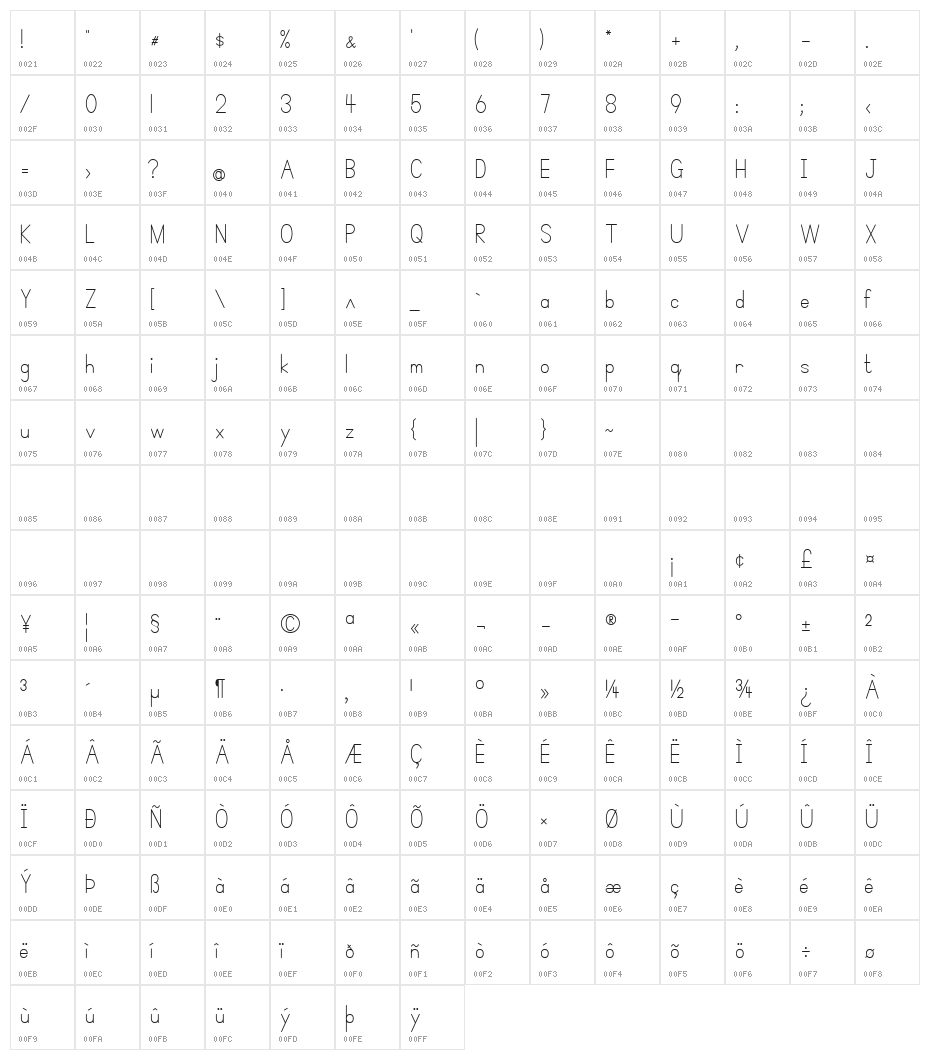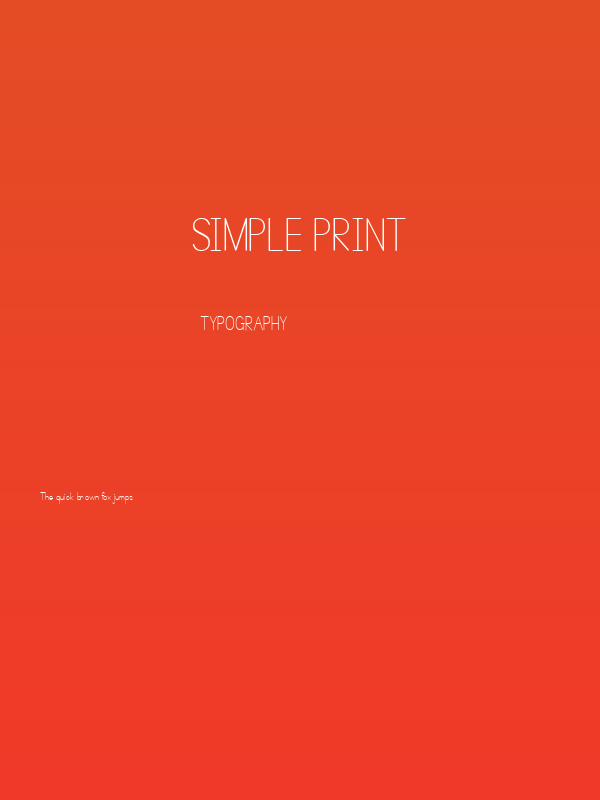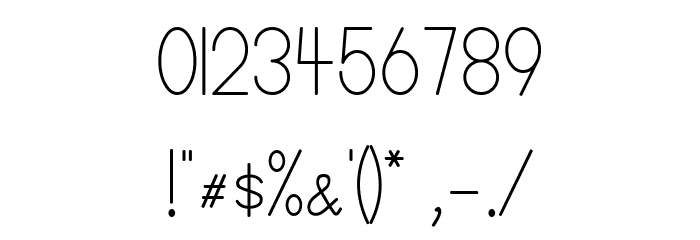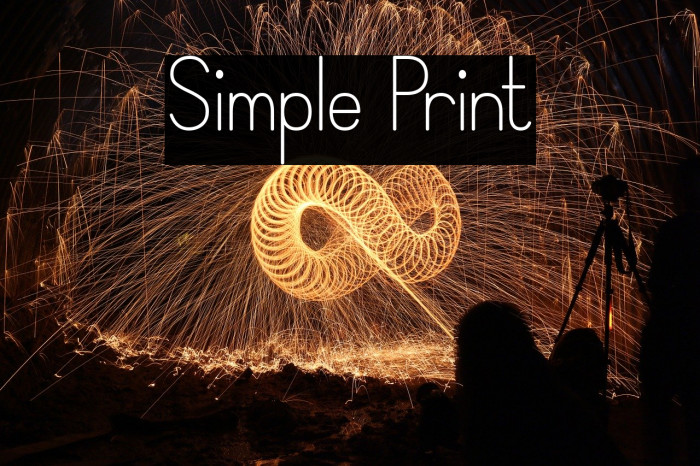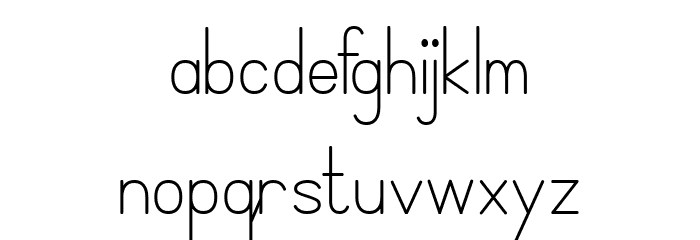
Simple Print Font
Simple Print Description
This font features a clean and straightforward design with thin, uniform strokes that give it a modern and minimalist appearance. The characters are evenly spaced, contributing to a balanced and uncluttered look. The uppercase letters are tall and narrow, while the lowercase letters maintain a consistent height, enhancing readability. The numerals are clear and distinct, matching the overall aesthetic of simplicity and elegance. Special characters are well-defined, maintaining the font's cohesive style. This font is ideal for projects that require a sleek and contemporary feel.